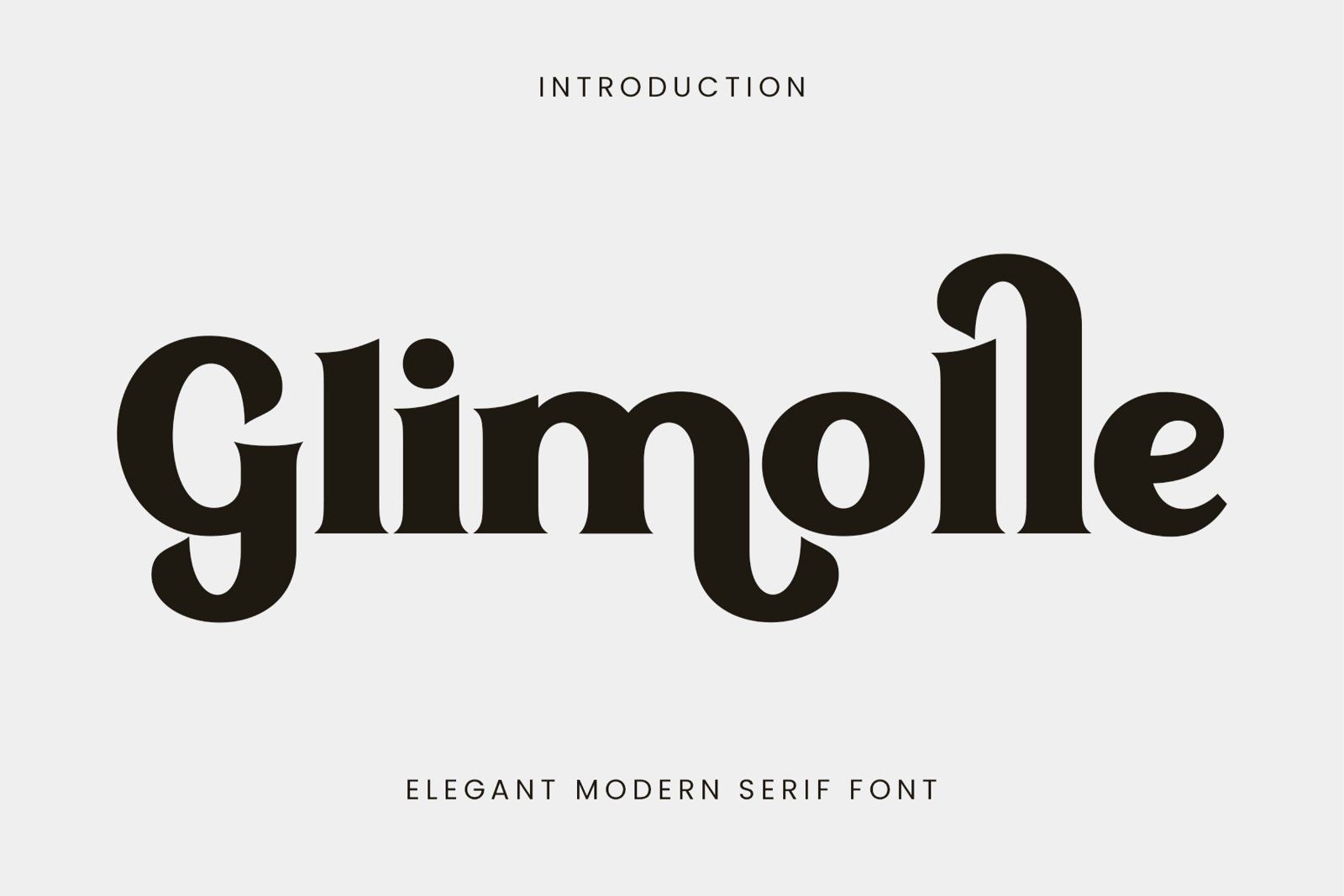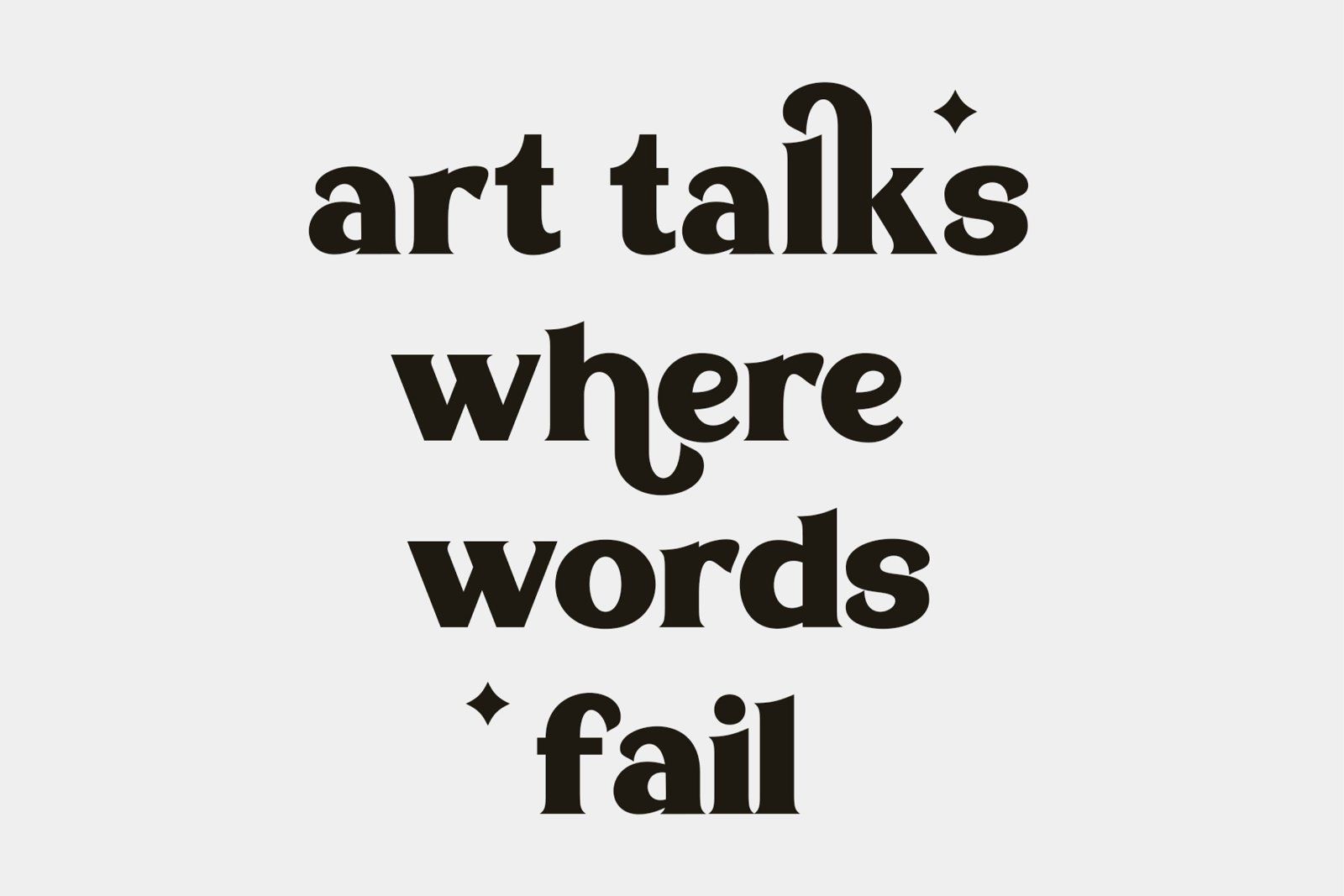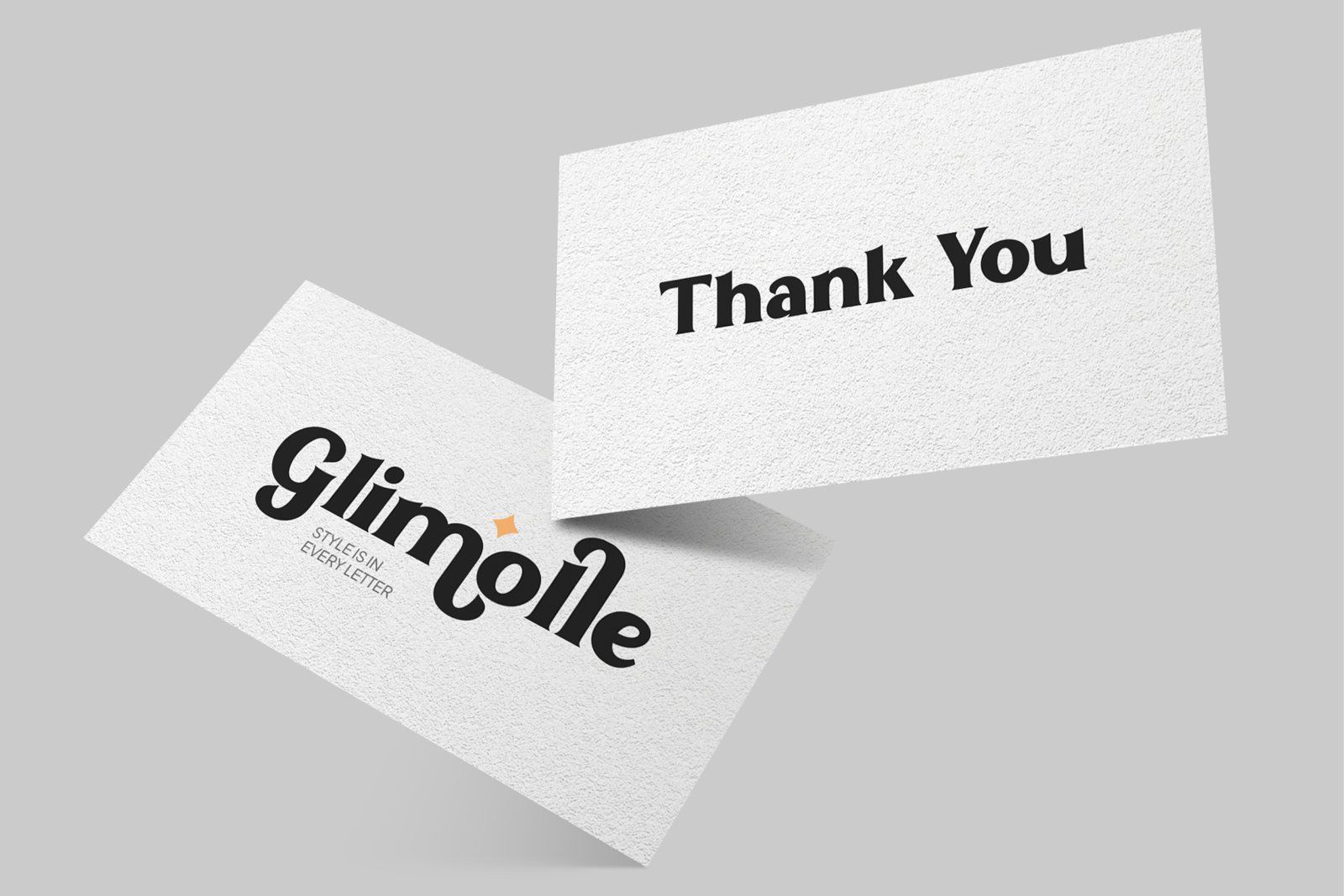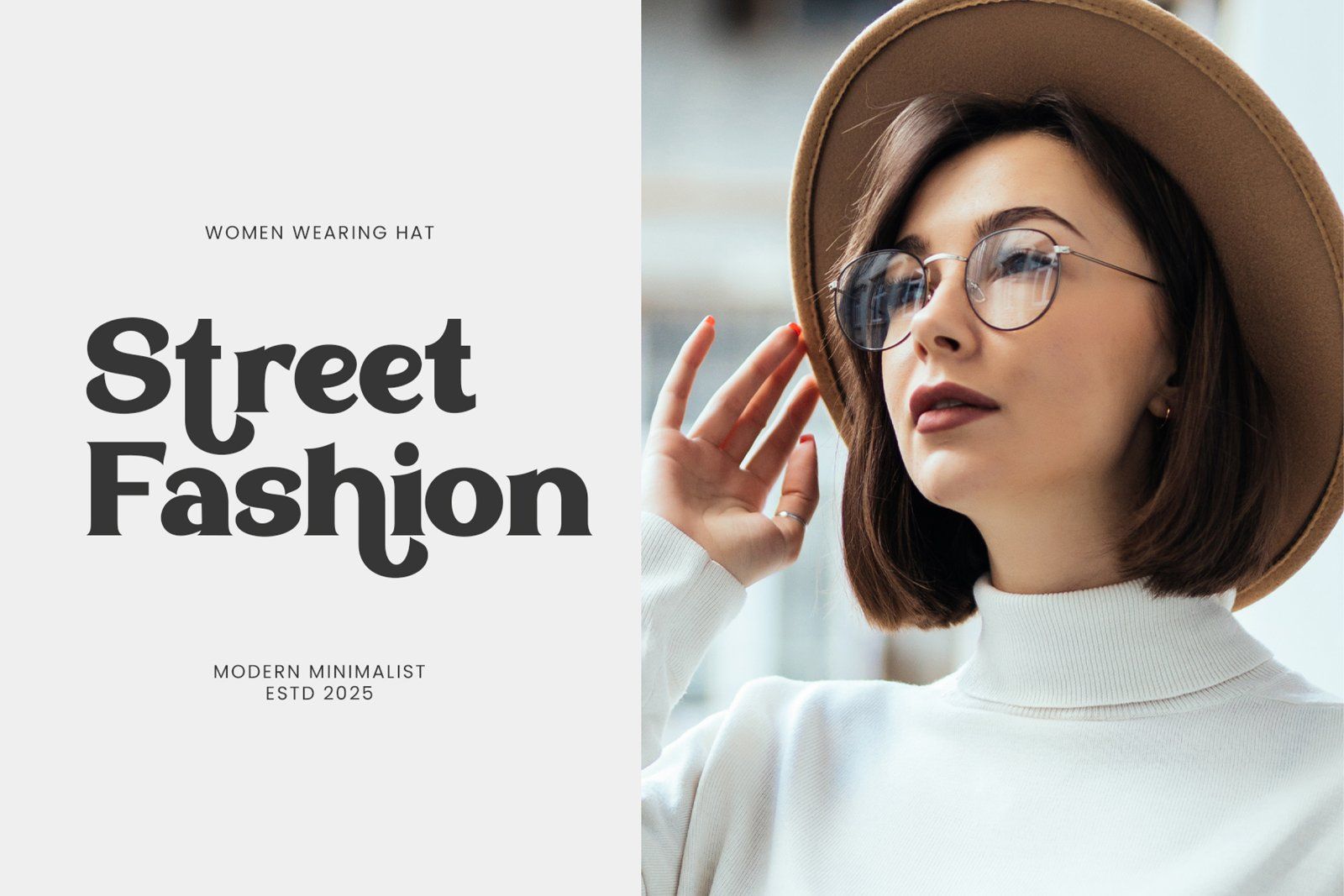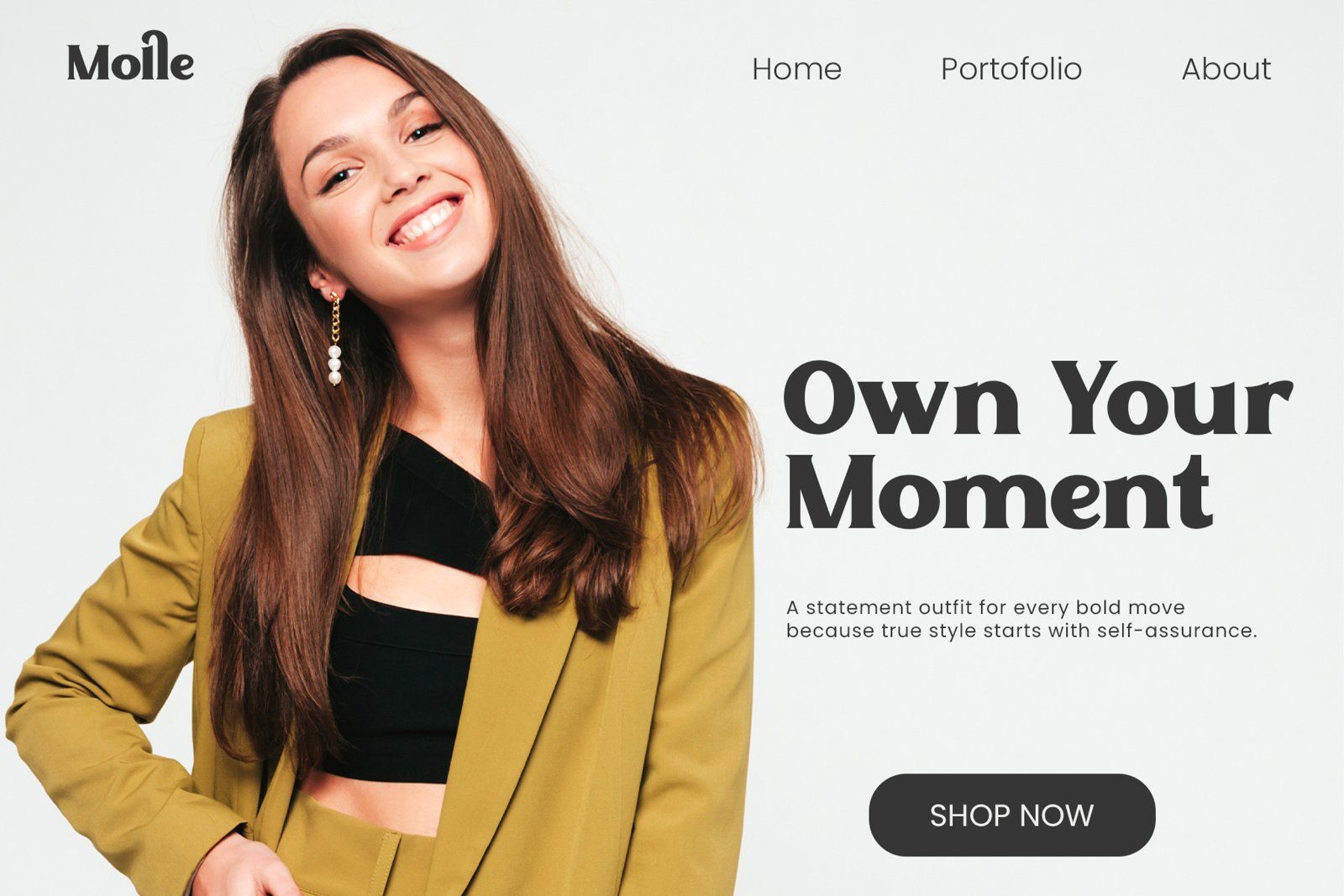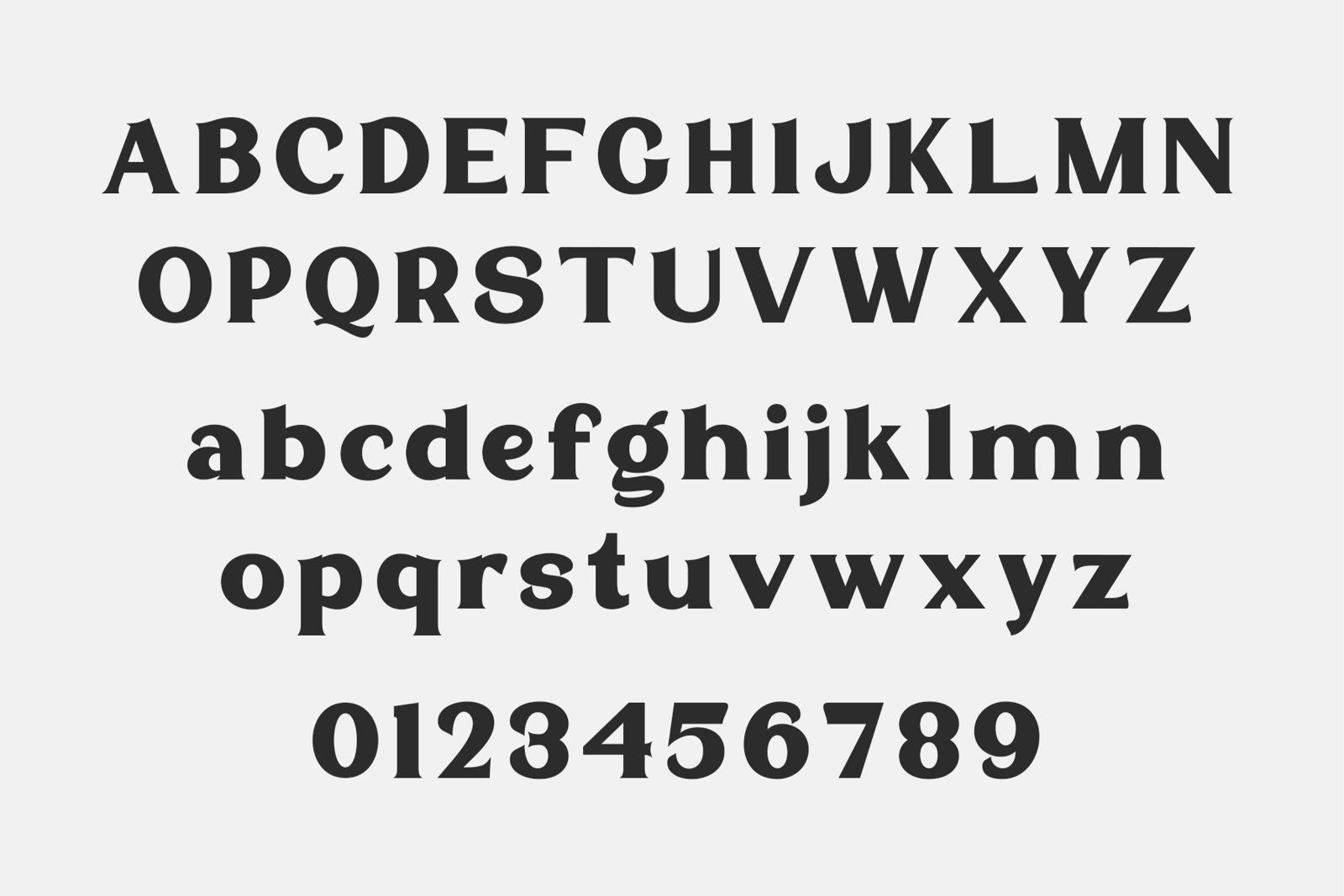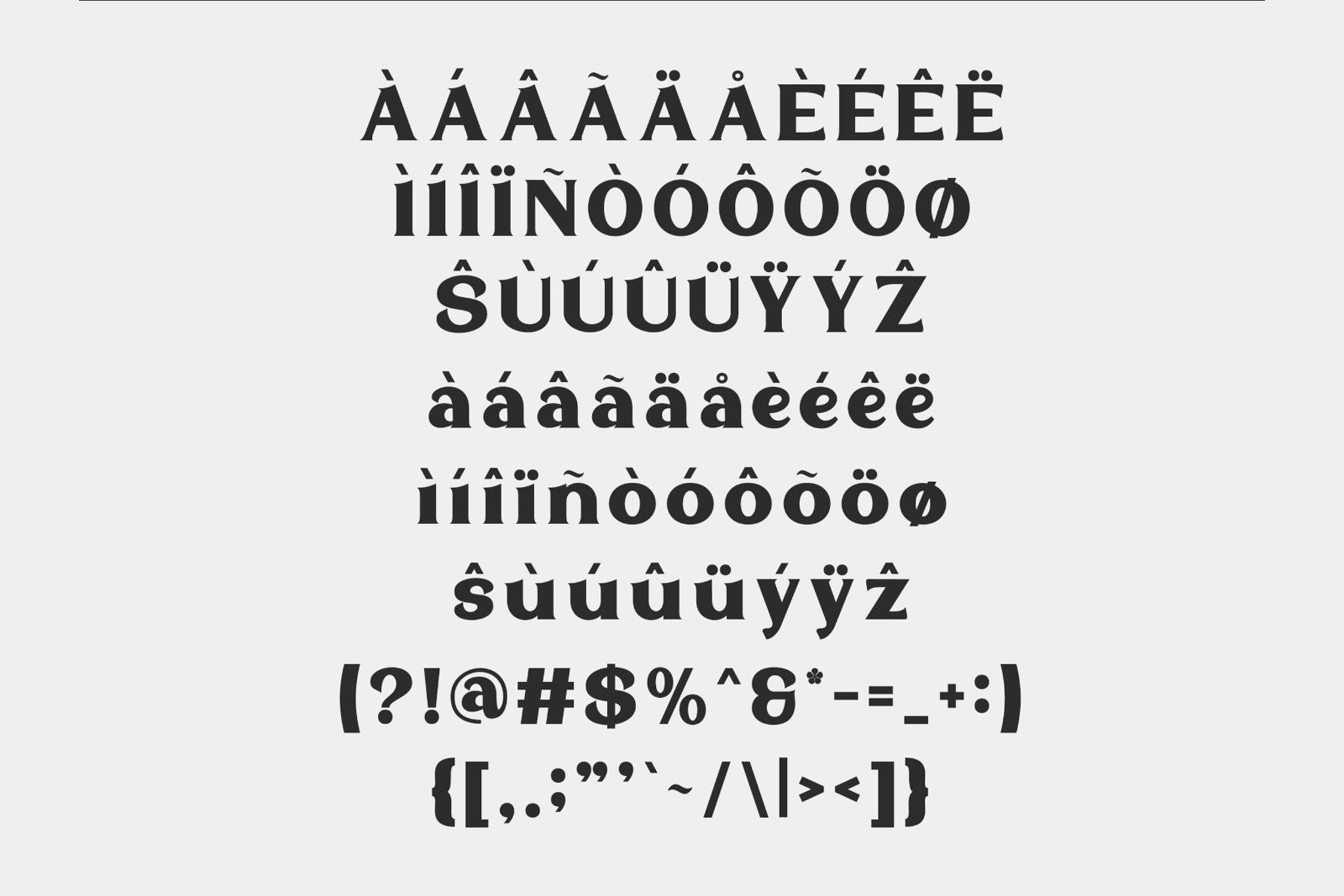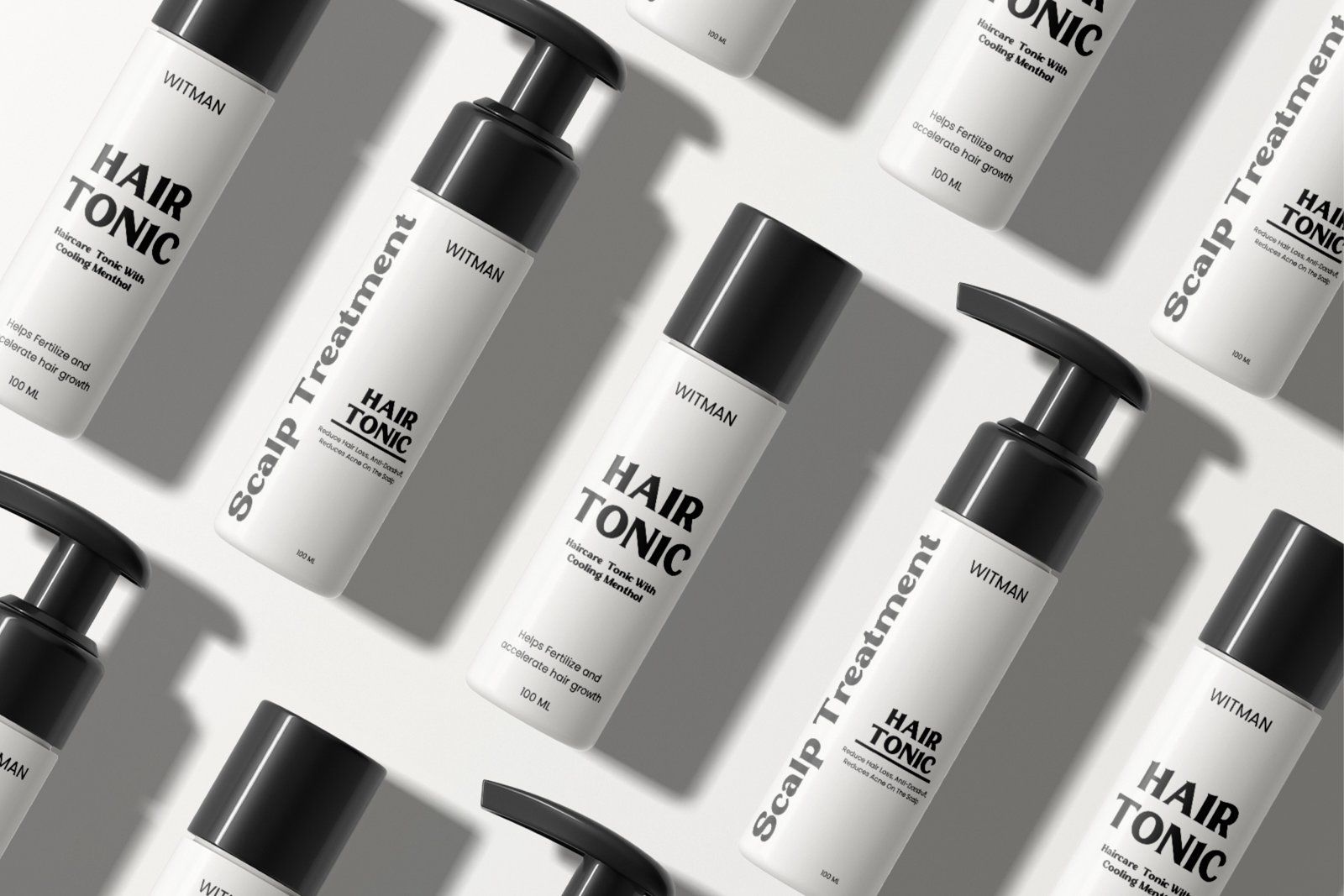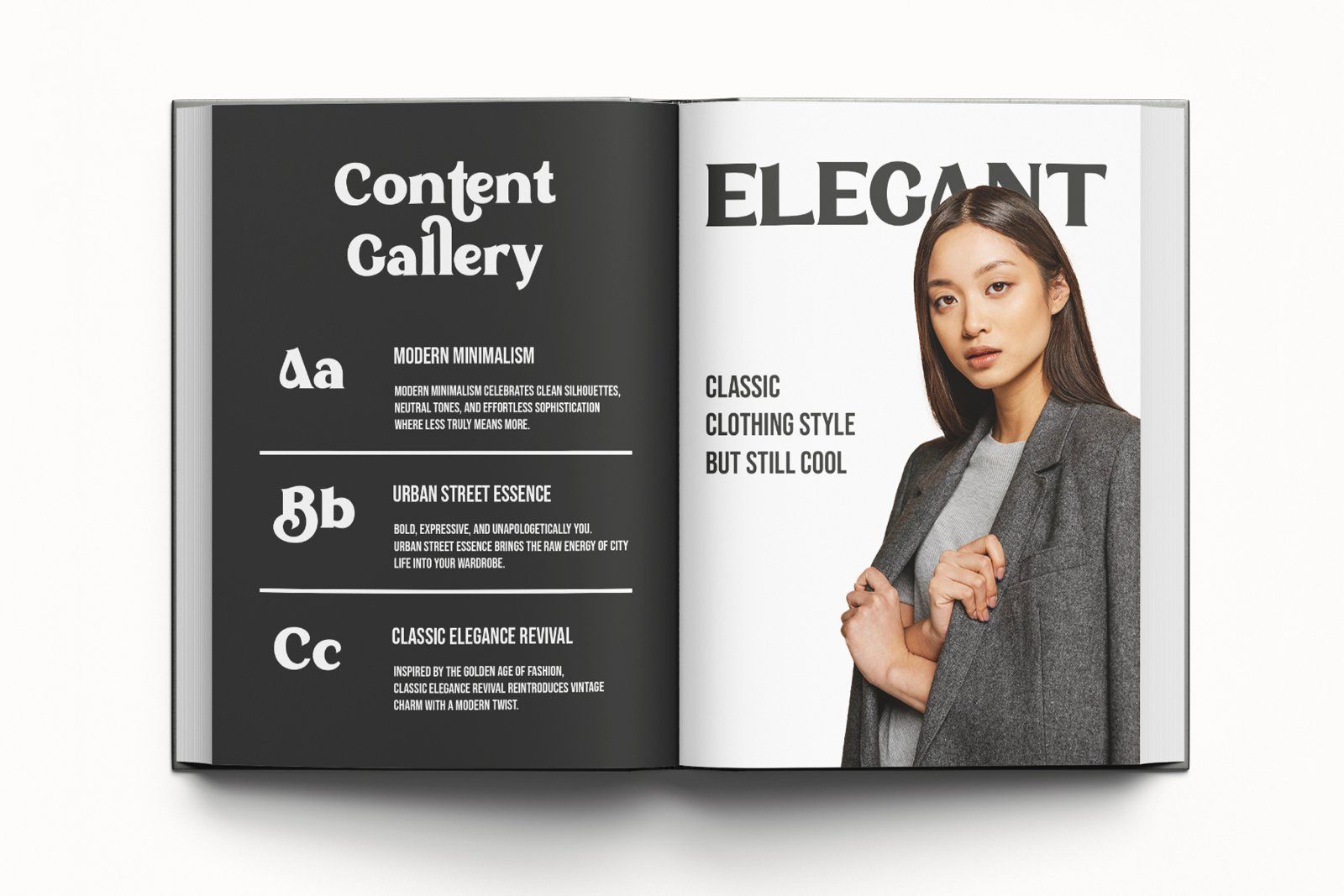
Glimole is an elegant modern serif font crafted to deliver a refined and high-end visual presence. With its distinctive curves and stylish letterforms, this typeface blends classic sophistication with a contemporary edge.
Perfect for luxury branding, fashion editorials, magazines, logos, packaging, and modern layouts that demand a strong and confident typographic voice.
Designed to stand out while maintaining balance, Glimole brings a timeless yet modern aesthetic to every composition.